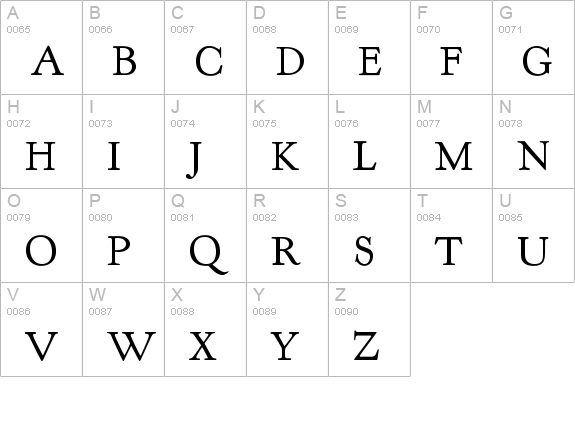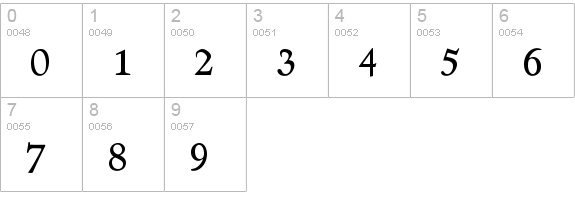
Kennerley Old Style Regular is the standard, neutral variant in the Kennerley typeface family \xE2\x80\x94 well suited to general body text, paragraphs, and standard typographic work.
Kennerley Old Style Regular font is a timeless and elegant typeface that exudes sophistication and class. Its carefully crafted letterforms and balanced proportions make it a versatile choice for a wide range of design projects. With its roots in traditional typography, Kennerley Old Style Regular font captures the essence of classic serif fonts while adding a modern twist. The clean lines and graceful curves create a sense of harmony and balance, making it a perfect choice for both body text and headlines. This beautiful font is freely available to download at FontsMarket.com, allowing designers and typographers to access its beauty and versatility without any cost. Whether you're working on a personal project or a professional assignment, Kennerley Old Style Regular font is sure to elevate your designs and make a lasting impression. Its legibility and readability make it an excellent choice for print materials such as books, magazines, and brochures. The carefully designed letterforms ensure that each character is easily distinguishable, even at small sizes or in challenging reading conditions. Kennerley Old Style Regular font's timeless appeal also shines in digital applications. Its clean and crisp appearance makes it a perfect choice for websites, blogs, and social media graphics. Its versatility allows it to seamlessly adapt to various design styles and layouts, whether you're creating a minimalistic interface or a bold and expressive design. With its freely available download at FontsMarket.com, Kennerley Old Style Regular font offers a rare opportunity to access a high-quality font without any cost. Whether you're a professional designer or a typography enthusiast, this font is a valuable addition to your font library. Its timeless elegance and versatility ensure that it will remain a go-to choice for years to come.